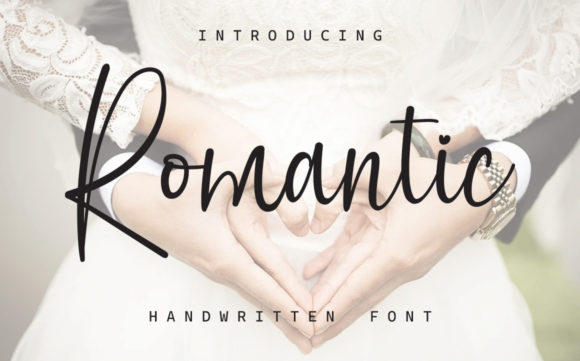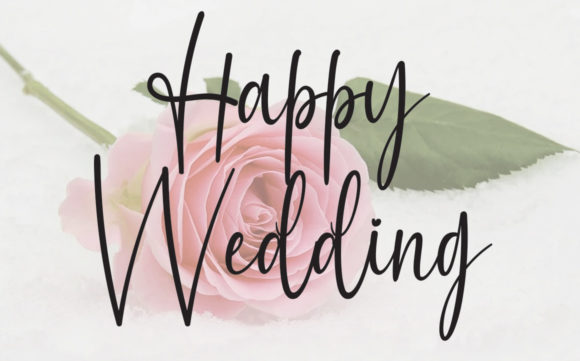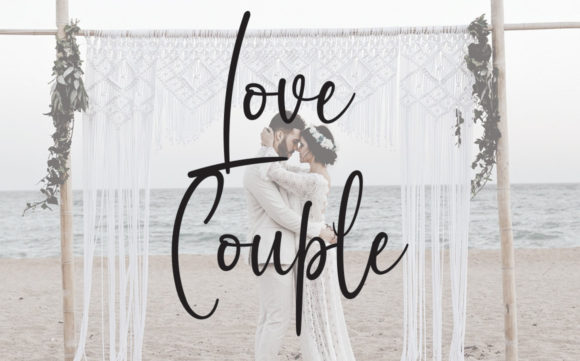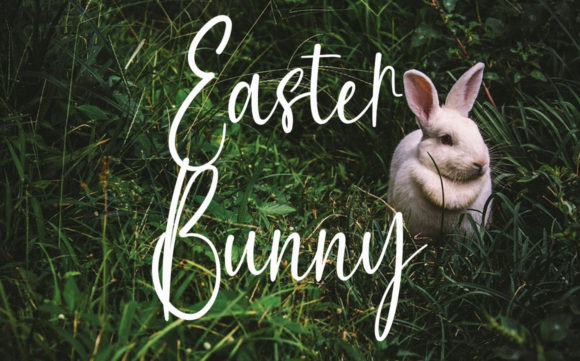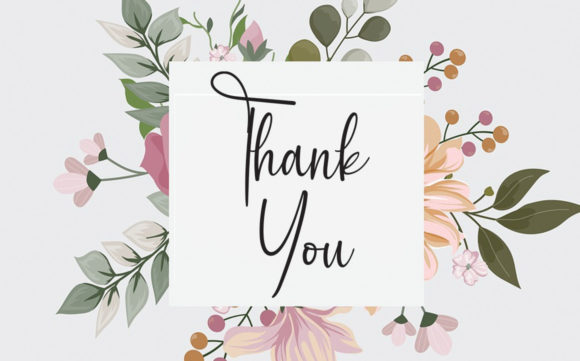
Romantic Font
About Romantic Font
Romantic is a beautiful and flowing handwritten font. Use it for wall displays, wedding invitations, social media post logos, advertisements, product packaging, product designs, labels, photography, watermarks, invitations, stationery, and any project that requires impressive typography.